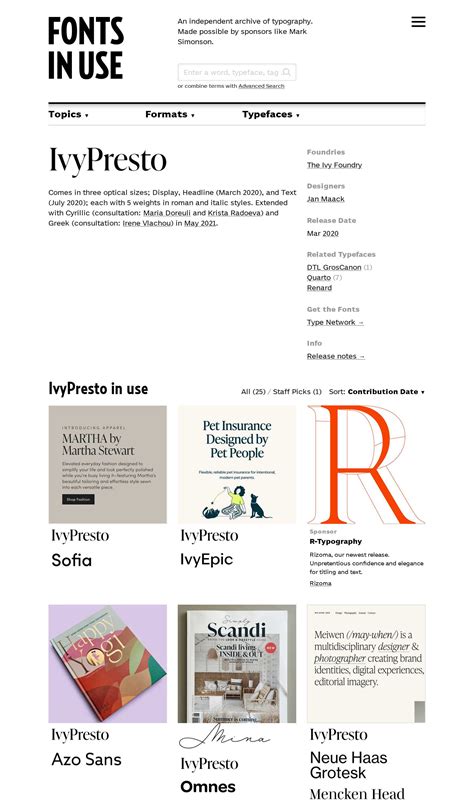
Ivypresto Google Fonts. When ivypresto display is not available, please use google font, playfair or system default times. Web making the web more beautiful, fast, and open through great typography
Web making the web more beautiful, fast, and open through great typography Web closest match on adobe fonts (typekit) * ivypresto; When ivypresto display is not available, please use google font, playfair or system default times. Closest free alternative on google fonts. The playfair project is led by claus eggers sørensen, a type. The 40 best fonts on adobe fonts; Web the family has been converted to a variable font in august 2019. A serif typeface with 10 styles, available from adobe fonts for. Web explore ivypresto display designed by jan maack at adobe fonts.
The playfair project is led by claus eggers sørensen, a type. When ivypresto display is not available, please use google font, playfair or system default times. Web explore ivypresto display designed by jan maack at adobe fonts. The 40 best fonts on adobe fonts; Web the family has been converted to a variable font in august 2019. Closest free alternative on google fonts. Web closest match on adobe fonts (typekit) * ivypresto; The playfair project is led by claus eggers sørensen, a type. Web making the web more beautiful, fast, and open through great typography A serif typeface with 10 styles, available from adobe fonts for.